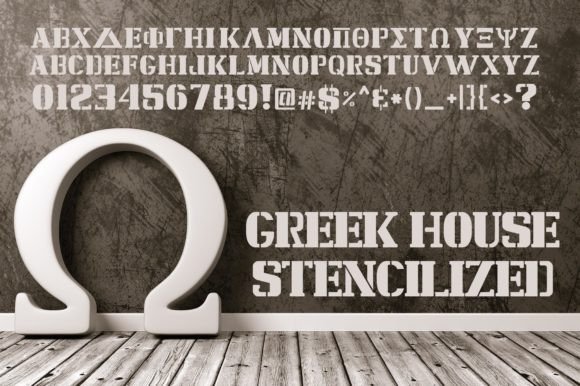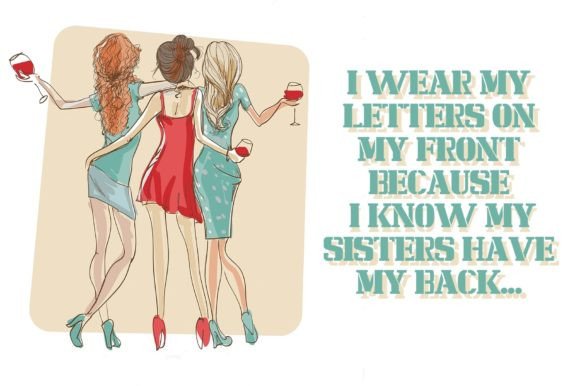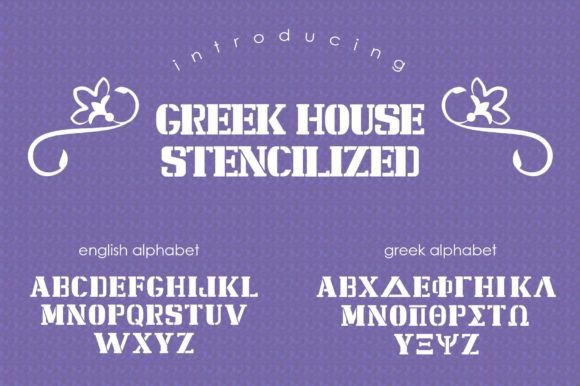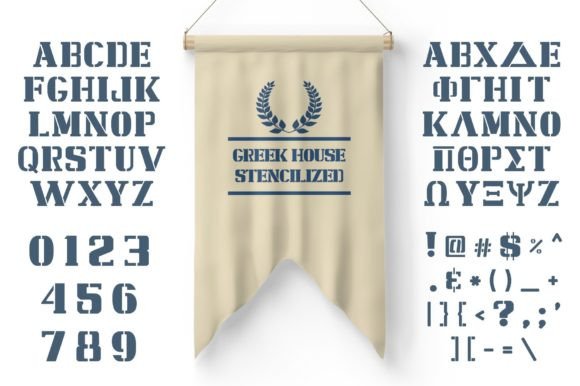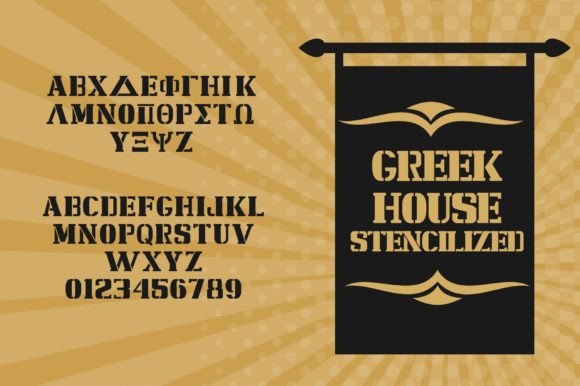
The Stencilized font is great for designing Greek Fraternity and Sorority / Collegiate T-shirts, Sweatshirts, promo products, and more. This Greek font has both Greek and English characters. Note this font is designed specifically for fraternities and sororities so it does not have lower case Greek fonts.
Stencilized Font